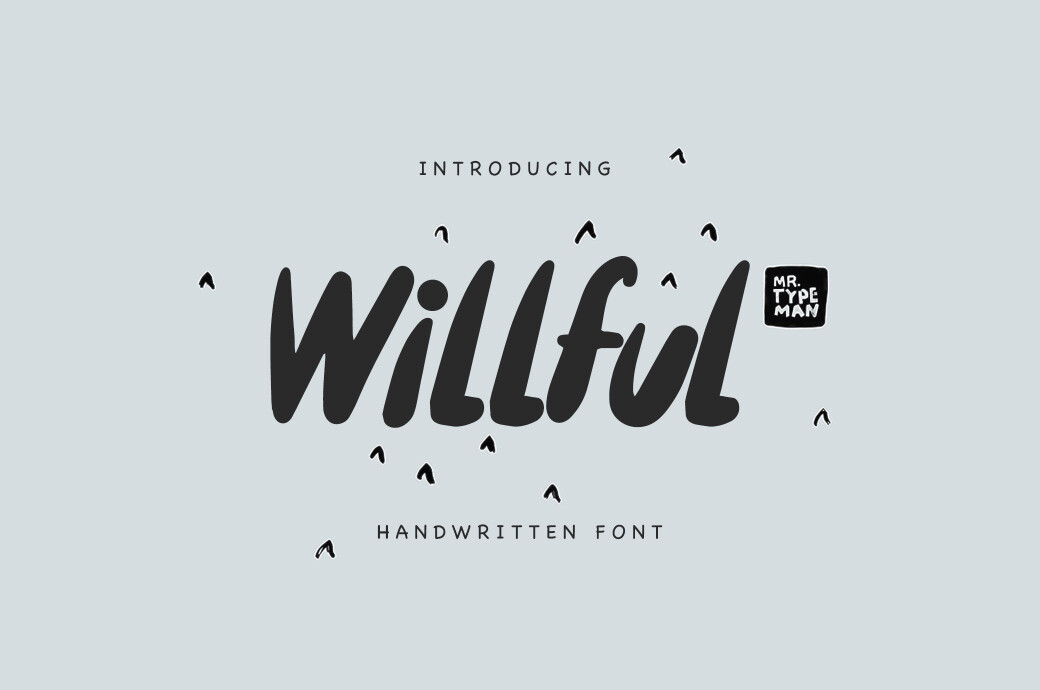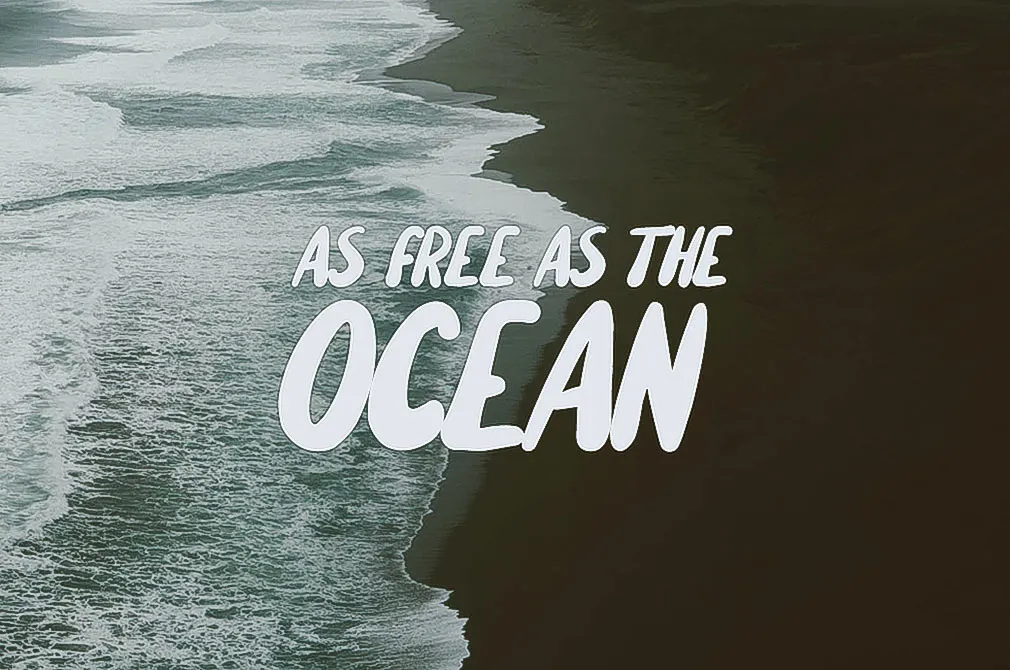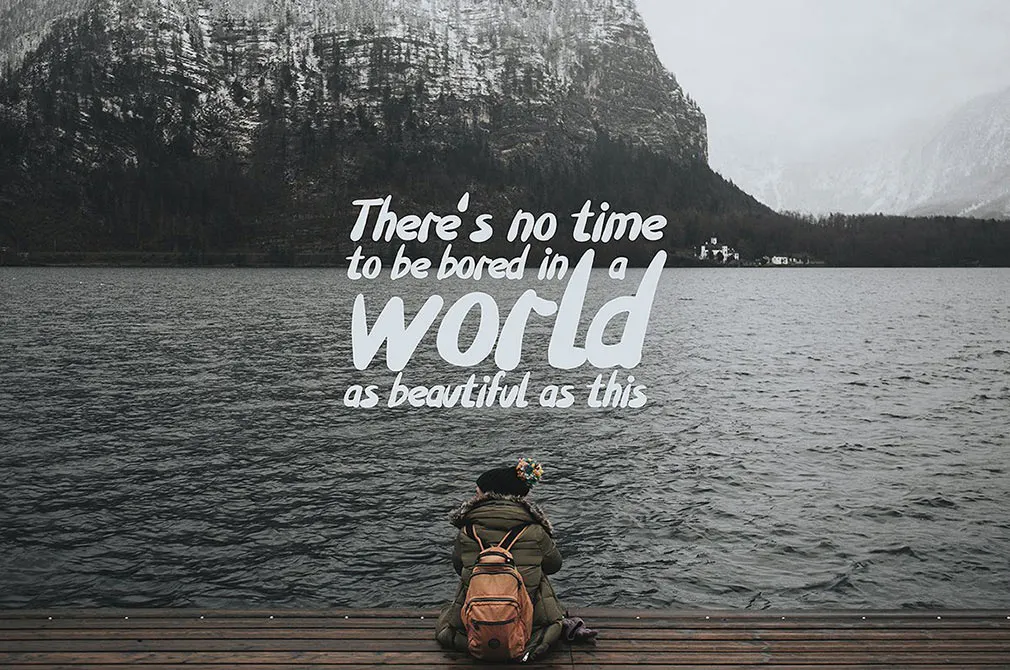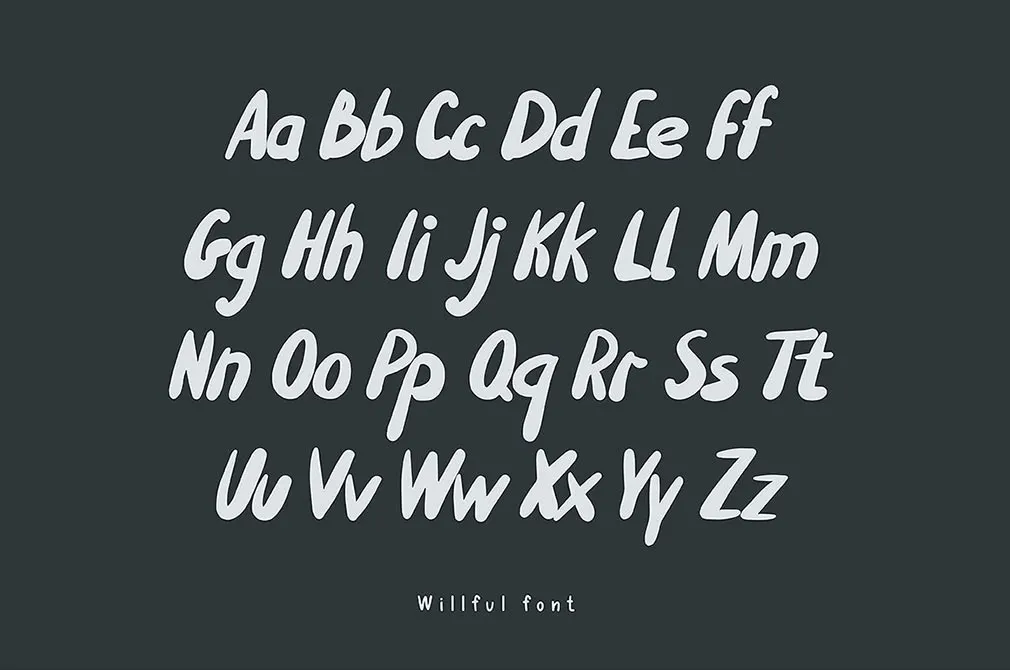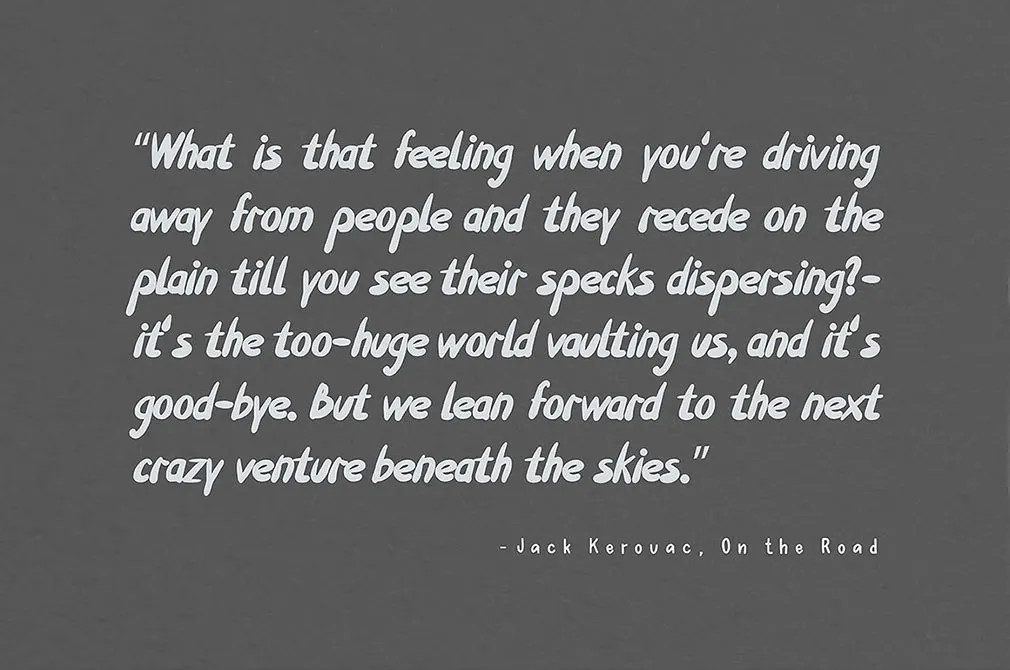
Willful Handwritten Brush Font
Willful
Let us introduce you Willful - juicy and vibrant handwritten brush font for a designers choosy heart, thats a perfect match for any tricky artwork you keep in mind.
If it were a puzzle, wed characterize it as something soft, airy and crayon-made. But well just introduce Willful. Combine it with minimalistic thin typefaces or use it separately - the result will pass over your expectations - no matter if you prepare a set of vacation postcards for your mates or a huge web project for a client!